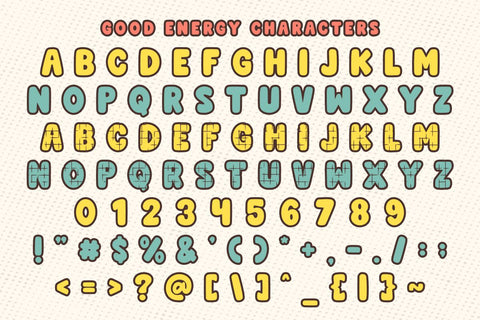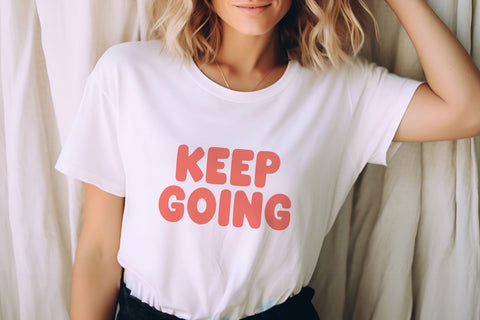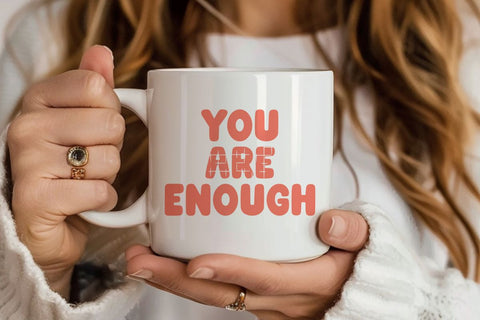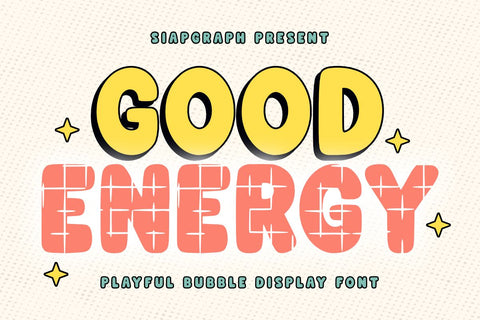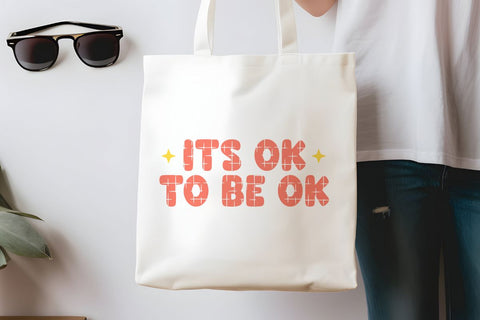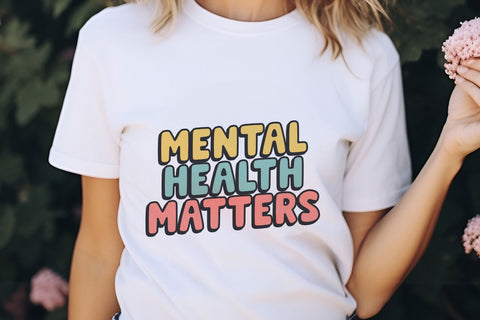
Good Energy - Playful Bubble Font
Good Energy is a delightful bubble font that exudes retro playfulness and modern versatility. With its bold, rounded shapes and a touch of nostalgia, this font is perfect for posters, branding, product packaging, social media, and designs aimed at capturing a cheerful, vintage-inspired vibe. Its charming and approachable style makes it a standout choice for adding personality and fun to any project.